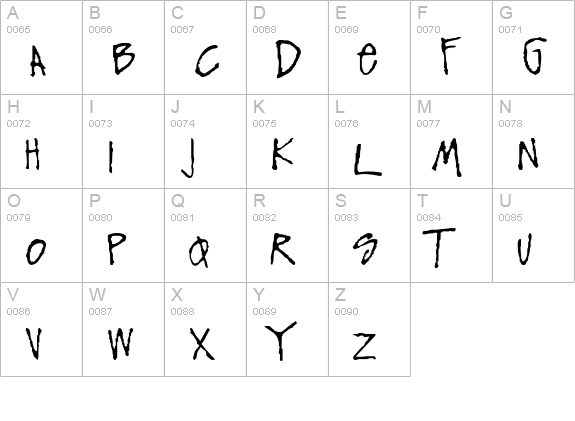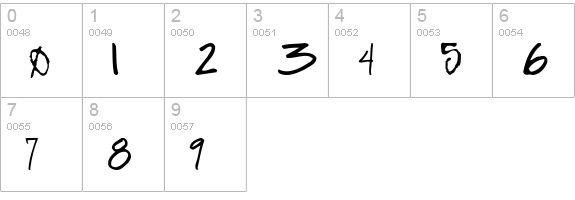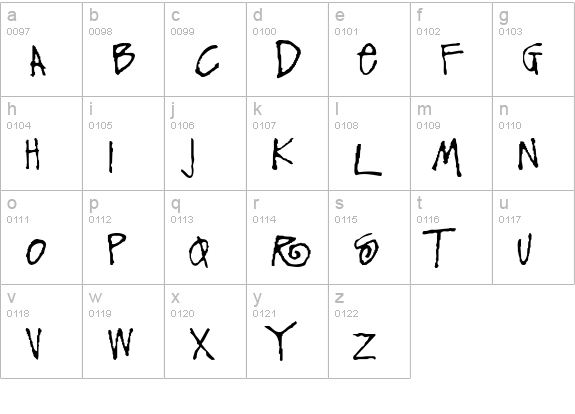
Introducing Funky Fresh font, a vibrant and playful typeface that exudes a sense of fun and creativity. With its bold and whimsical design, Funky Fresh is perfect for projects that require a touch of energetic charm. This free font is sure to make your designs stand out and capture attention. Funky Fresh font is freely available to download at FontsMarket.com, where you can explore its full range of characters and styles. Whether you're working on a poster, logo, or branding project, Funky Fresh will add a unique flair and a modern twist to your designs. Embrace the funky vibes and let your creativity shine with Funky Fresh font!